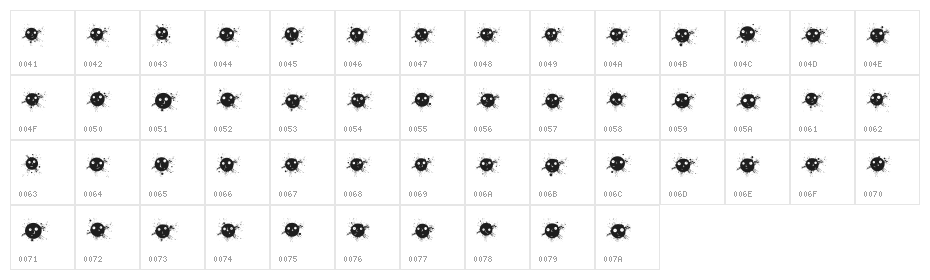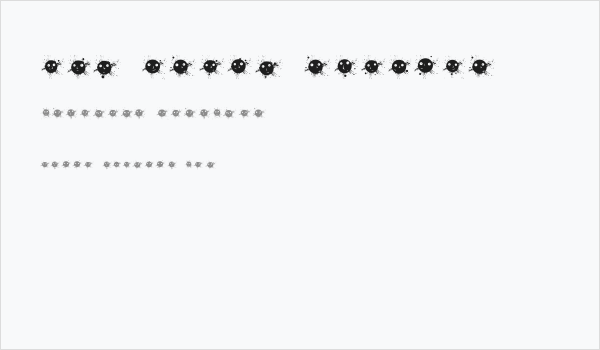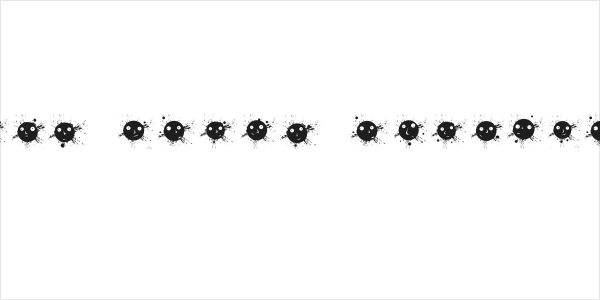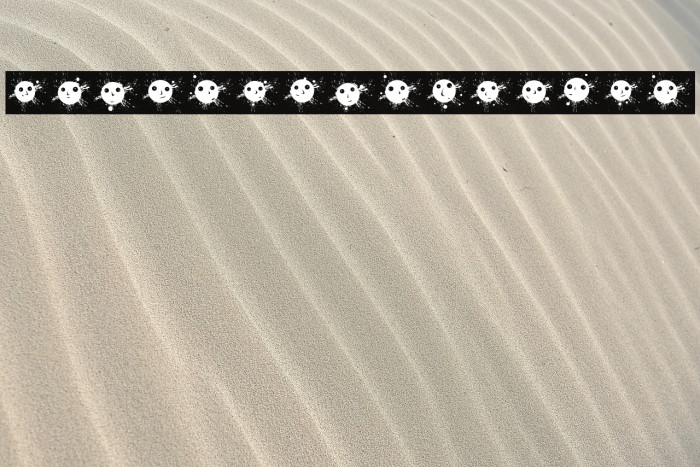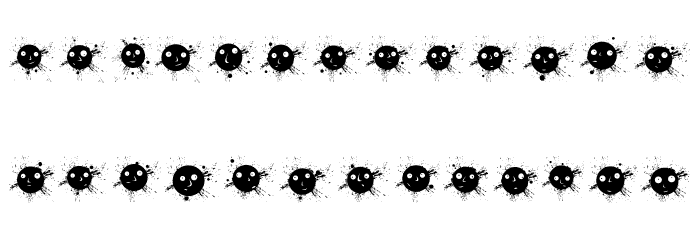
Ink Drops Regular Font
Ink Drops Regular Description
This font features playful, ink-splattered characters that resemble cartoonish ink drops with eyes. Each character is a unique splatter, giving the font a whimsical and artistic feel. The design is highly decorative, with each letter and symbol appearing as a distinct ink blot, complete with splashes and drips that extend outward. The characters maintain a consistent circular shape, with variations in the splatter patterns, adding a dynamic and lively touch. This font is ideal for creative projects that require a fun and unconventional style, making it perfect for children's materials, artistic designs, and playful branding.
| Use Case | Logos, Headlines, Artistic Designs |
| Proposed Projects | Ideal for children's books, artistic posters, playful branding, and creative invitations. |